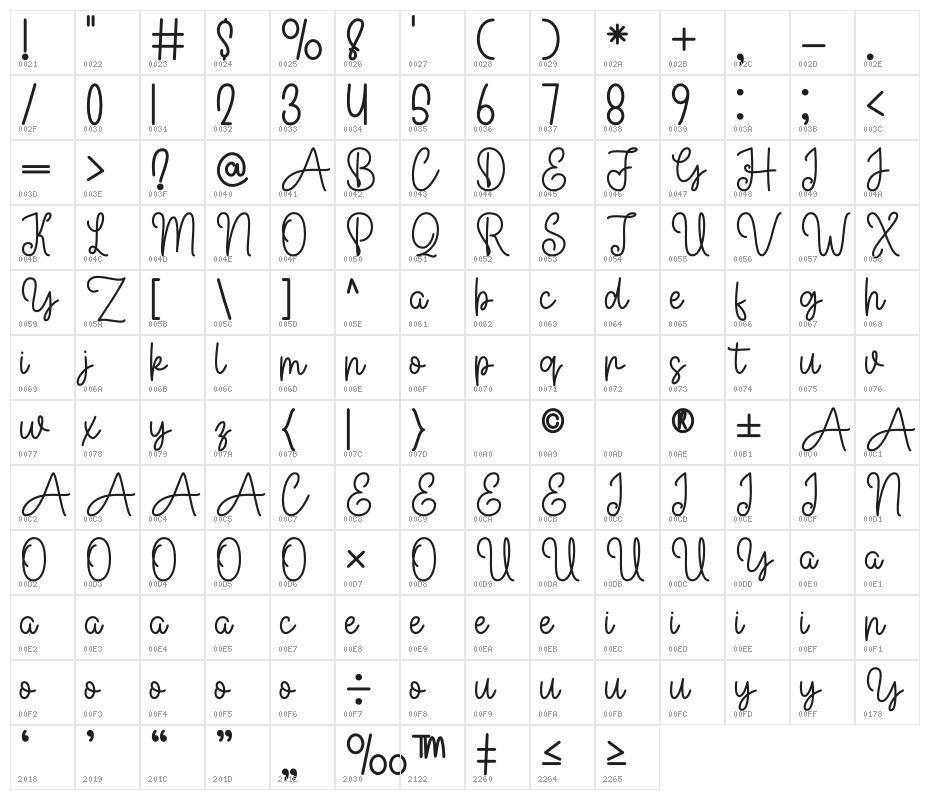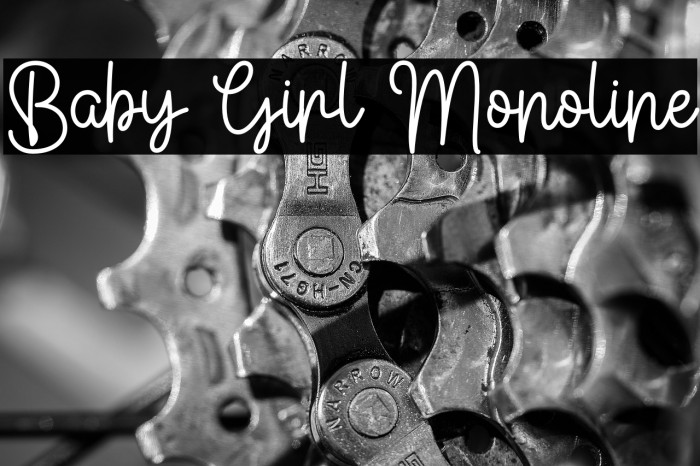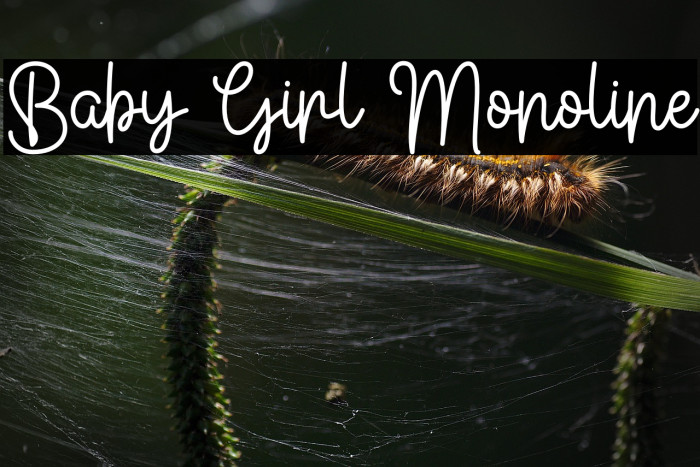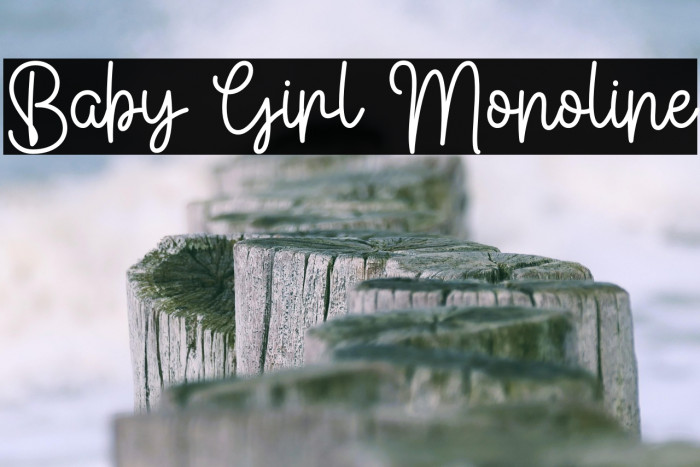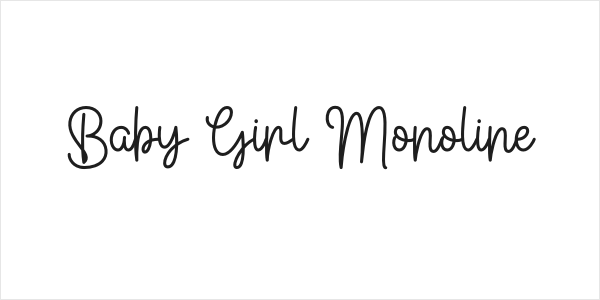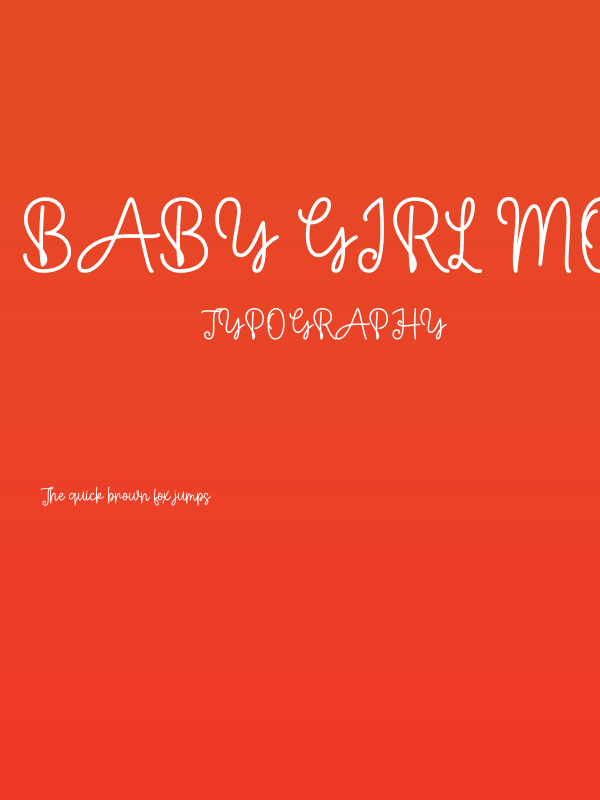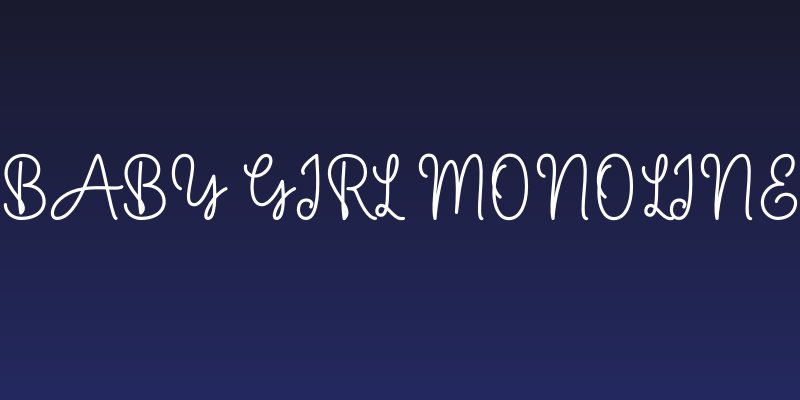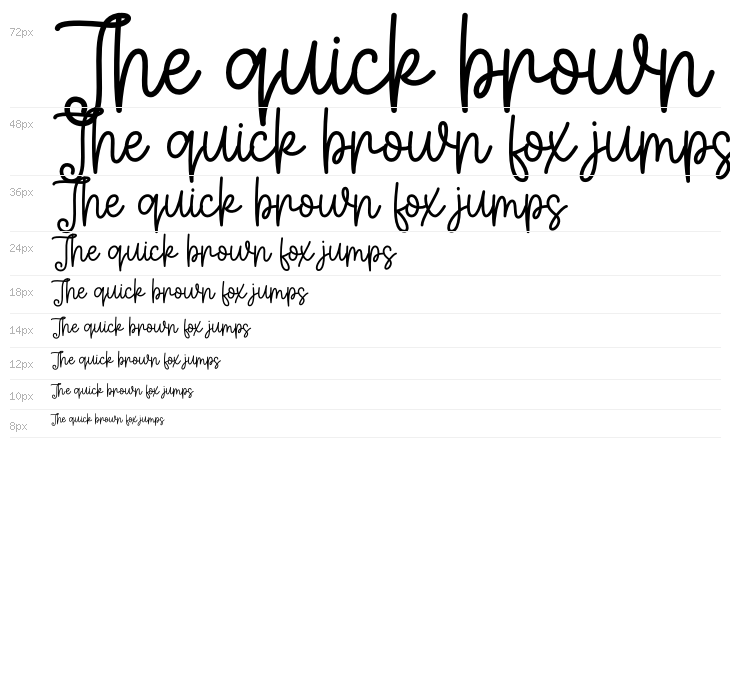
Baby Girl Monoline Font
Baby Girl Monoline Description
This font features a playful and elegant monoline script style, characterized by its smooth, continuous strokes and rounded edges. The uppercase letters exhibit a charming, whimsical flair with loops and curves that add a sense of movement and fluidity. The lowercase letters maintain a consistent flow, enhancing readability while retaining a unique personality. Numbers and special characters are crafted with the same attention to detail, ensuring a cohesive look across all elements. The overall design is both modern and approachable, making it suitable for a variety of creative applications.